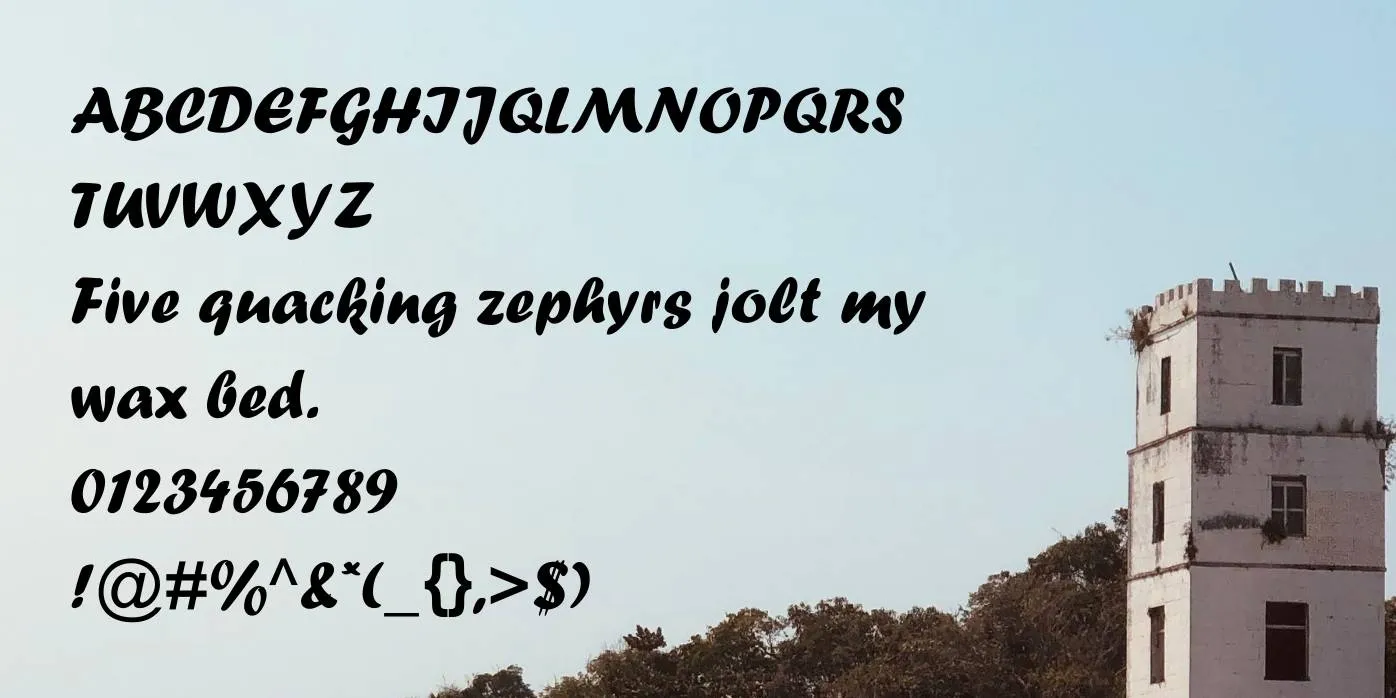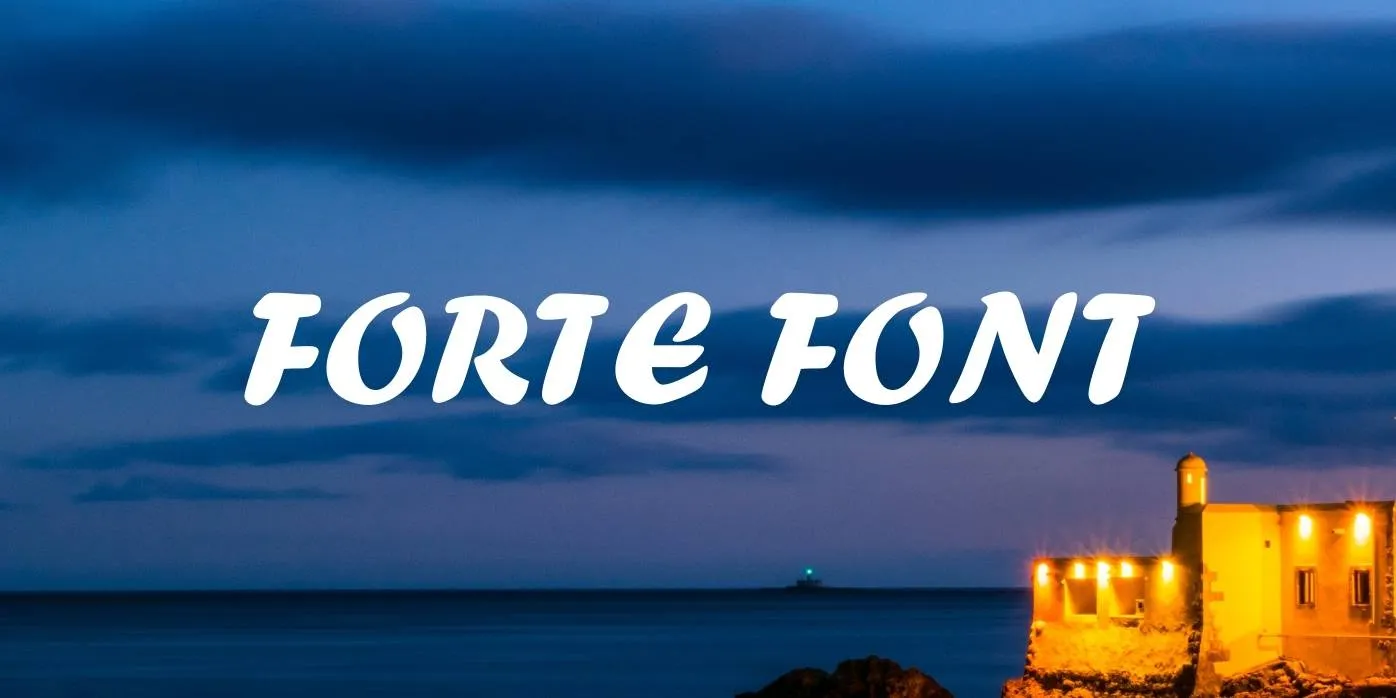
Forte Font
Introducing a font that has a high-class texture formation that is known as Forte Font. This typeface has a moderate brush look with a beautiful condensed visual. The designer of this typeface is Austrian Commercial Named Artist Carl Reissberger. It is a keen feature typeface and the font has a very pleasant and inviting character assembling.
The typeface has TTF features and is free for personal works only. It can provide an ultra-natural brush feeling to the users and designers. Because of its popularity, this typeface can be used in various famous software like Office 2010, Access 97 SR2, and PhotoDraw 2000, Office 2007. It has Truetype outlines with Uppercase and Lowercase letters, Numbers and Numerals, general punctuation, special glyphs, and special symbols also.